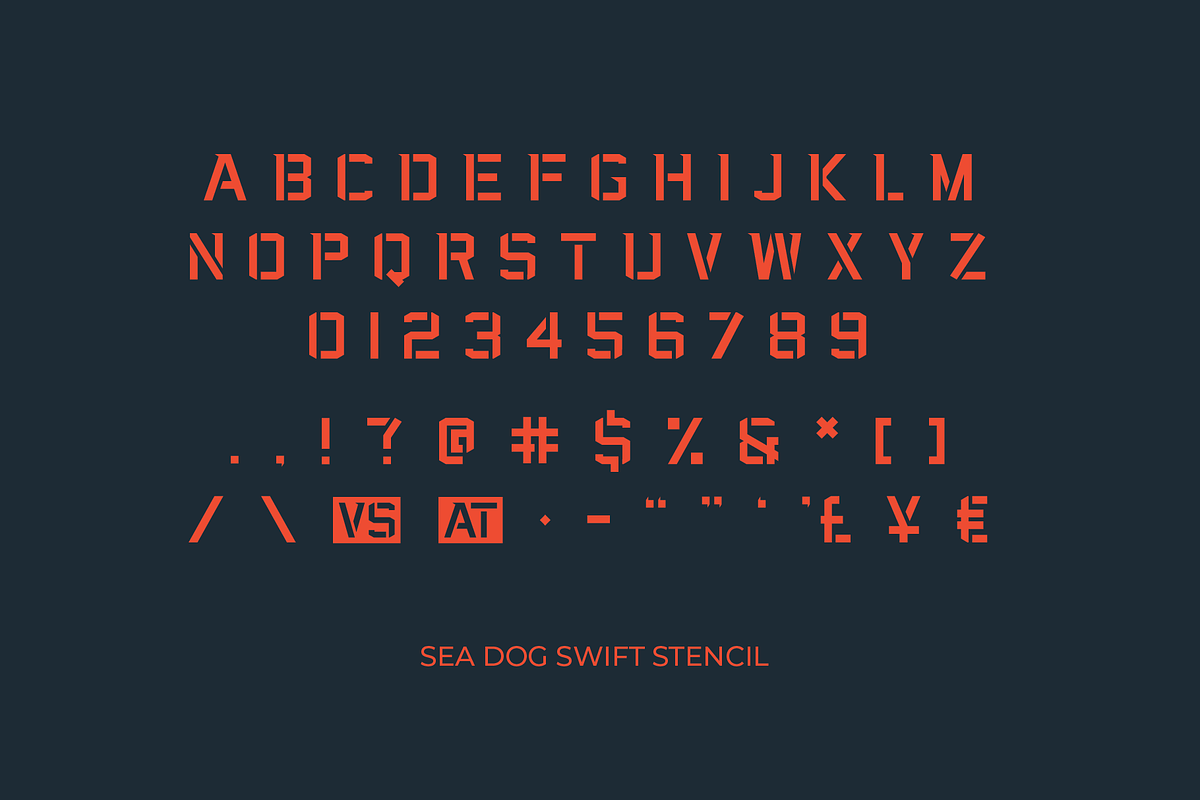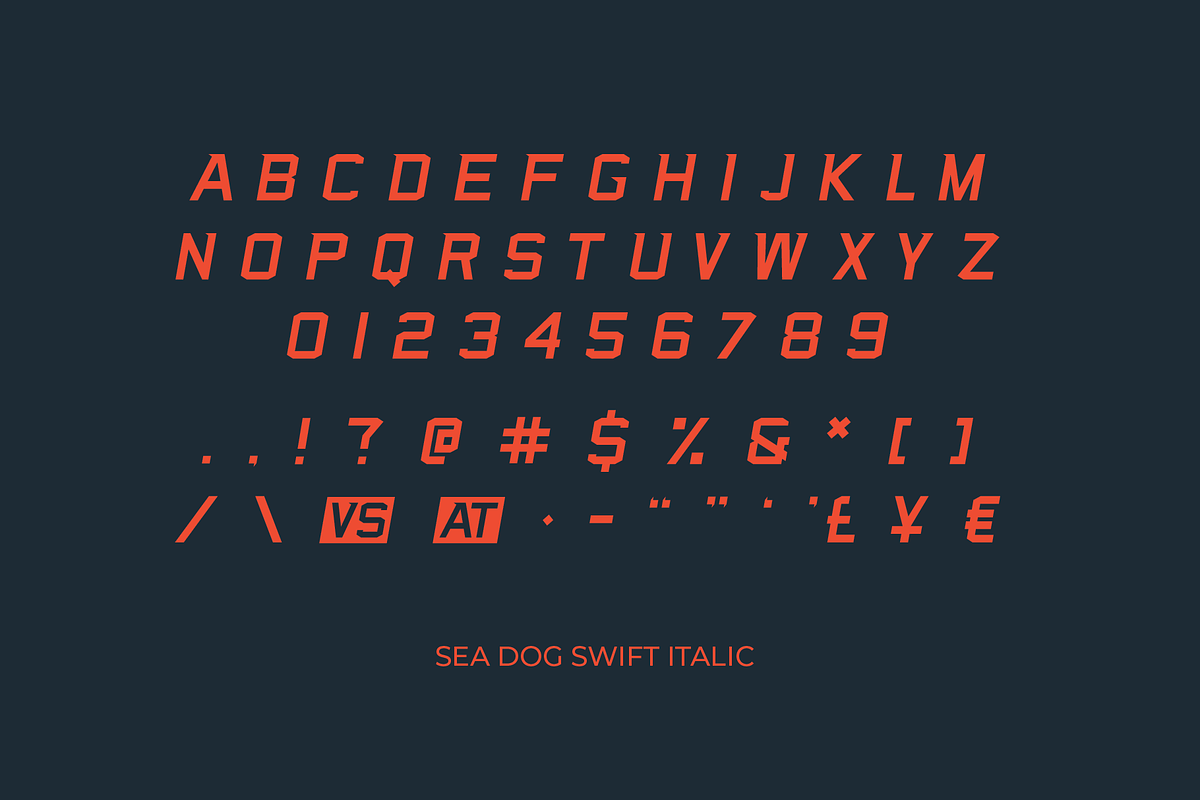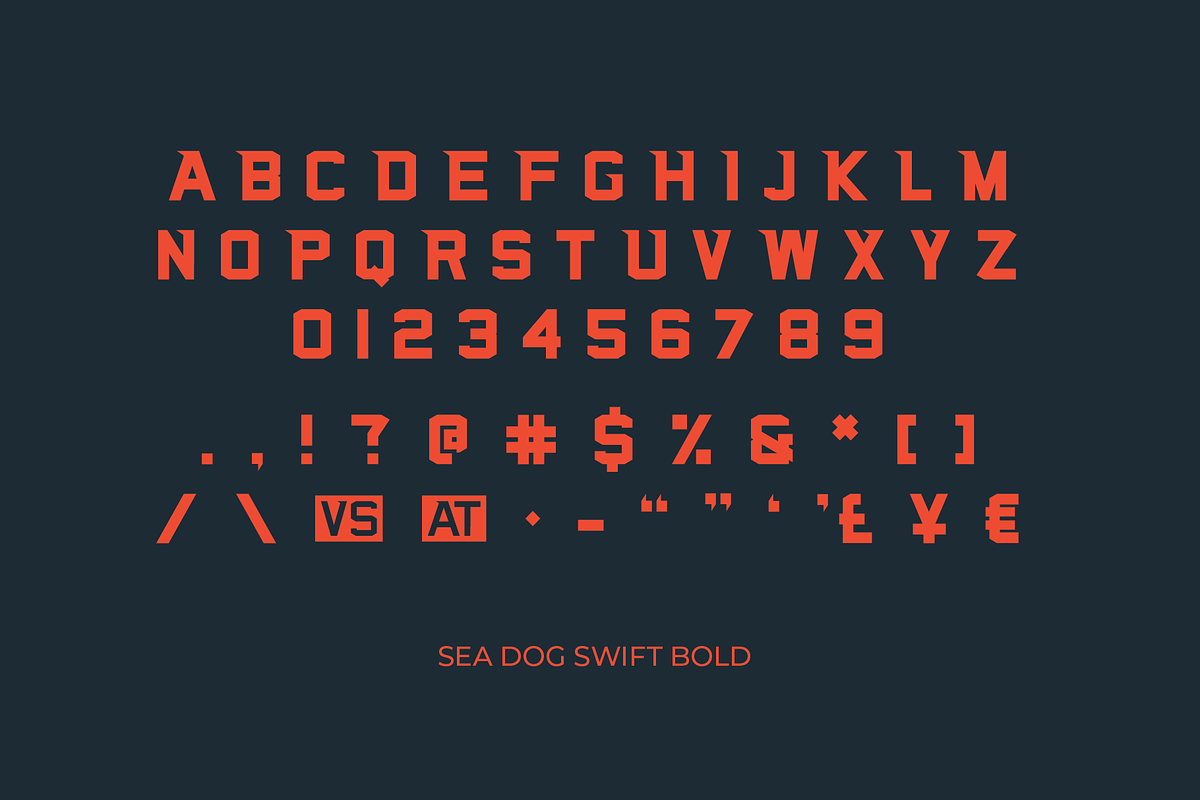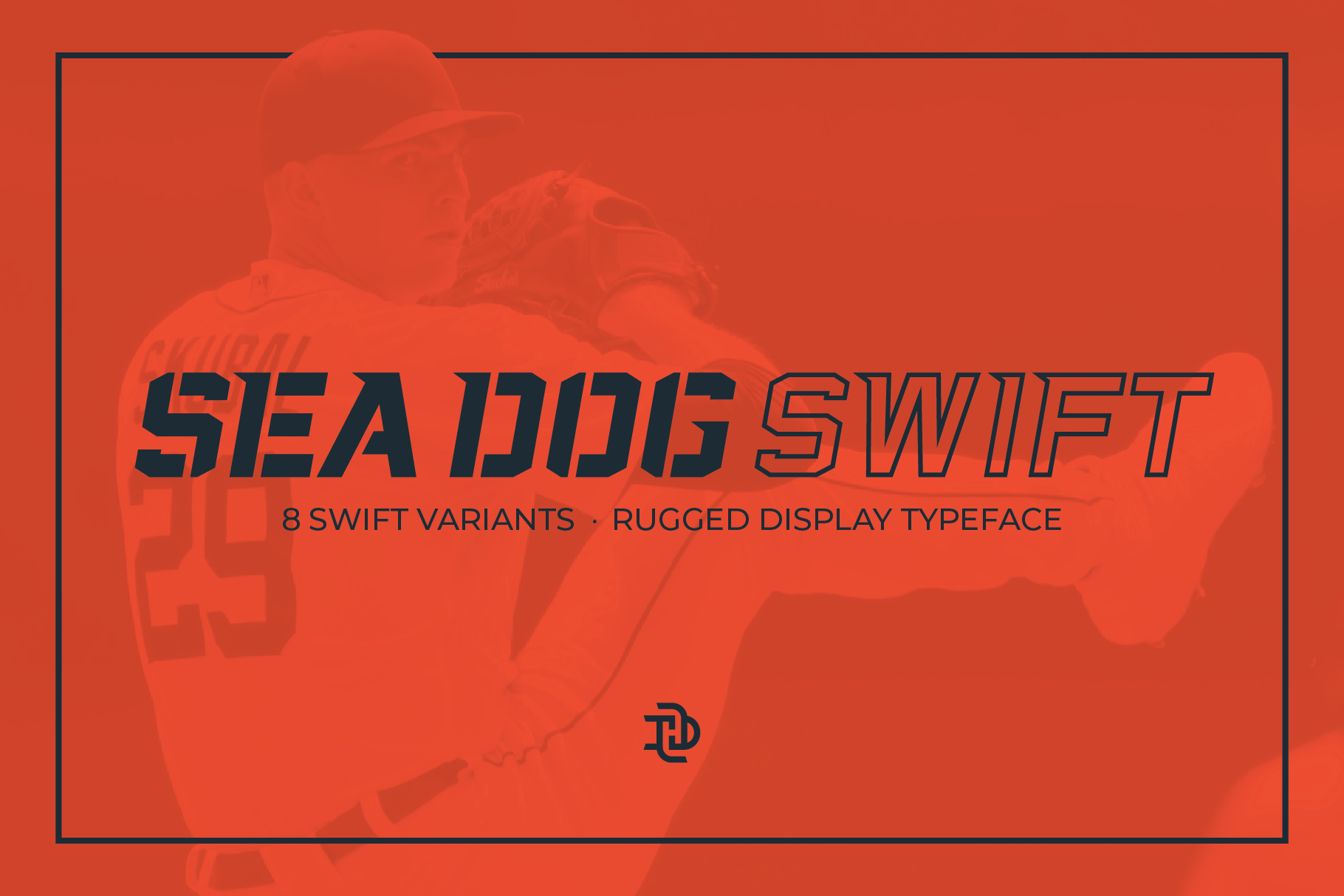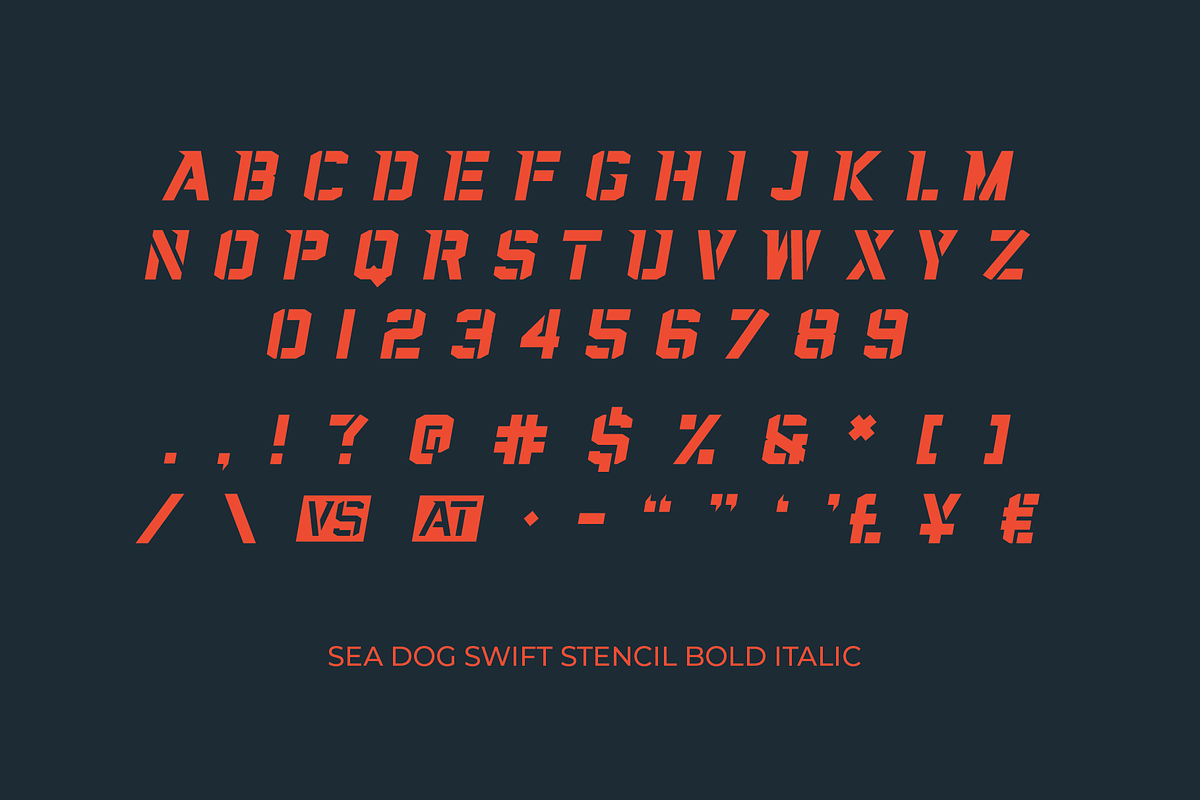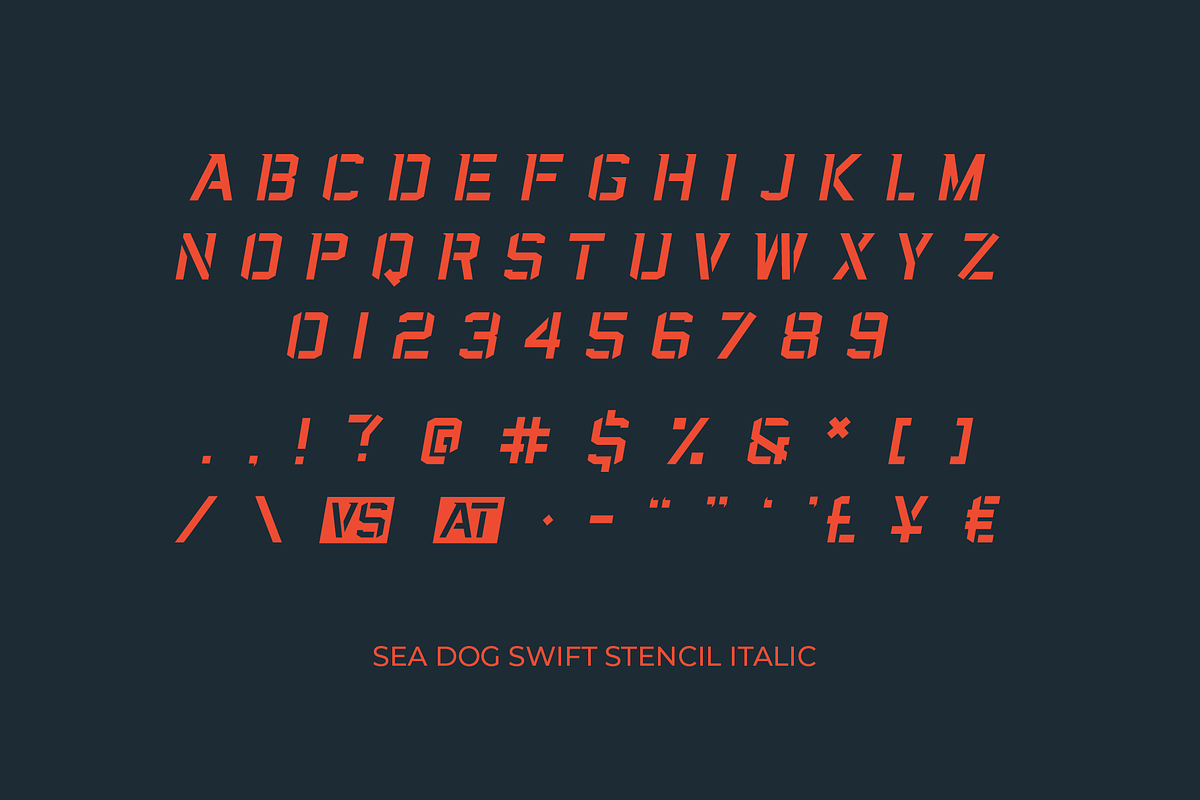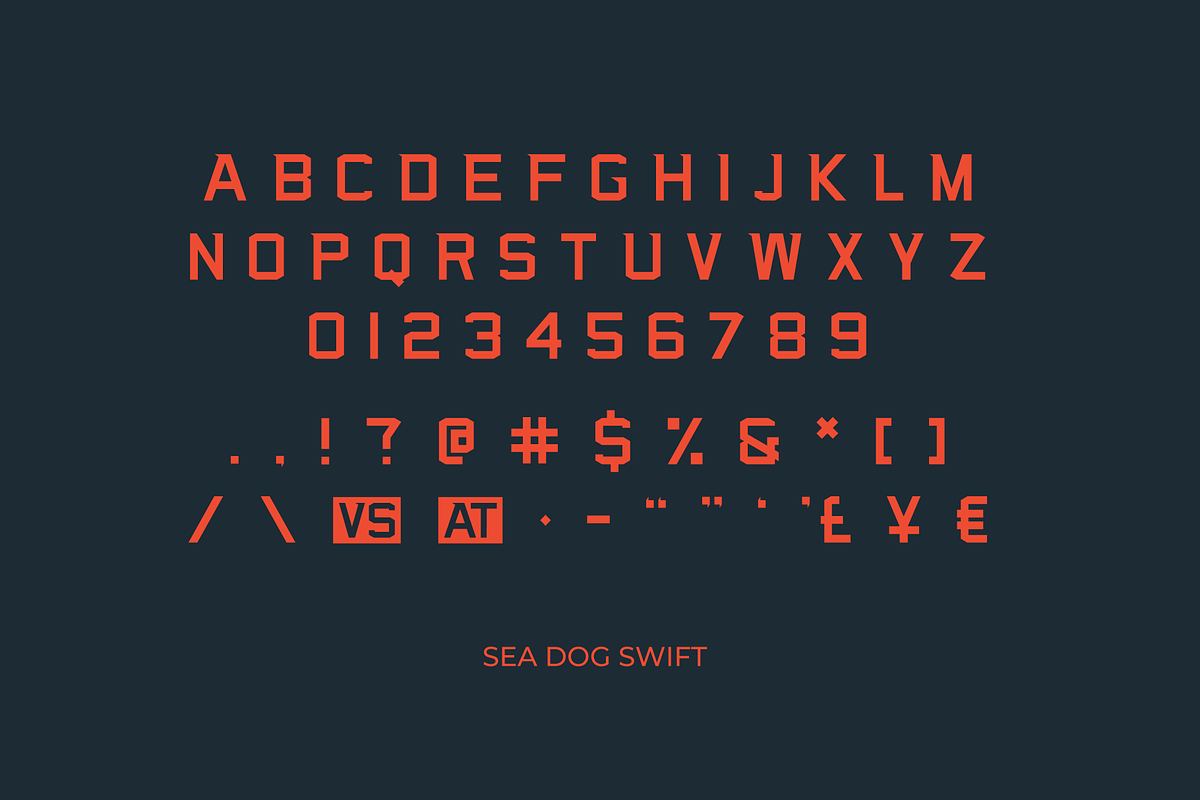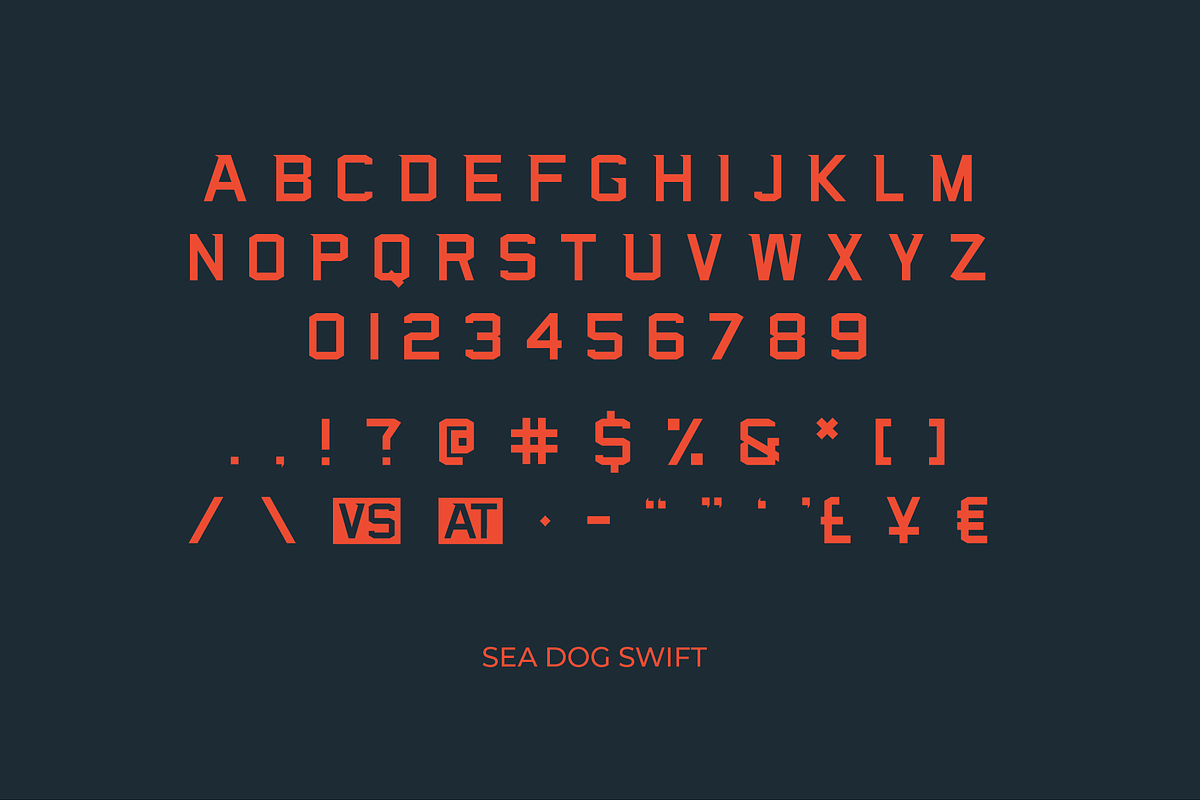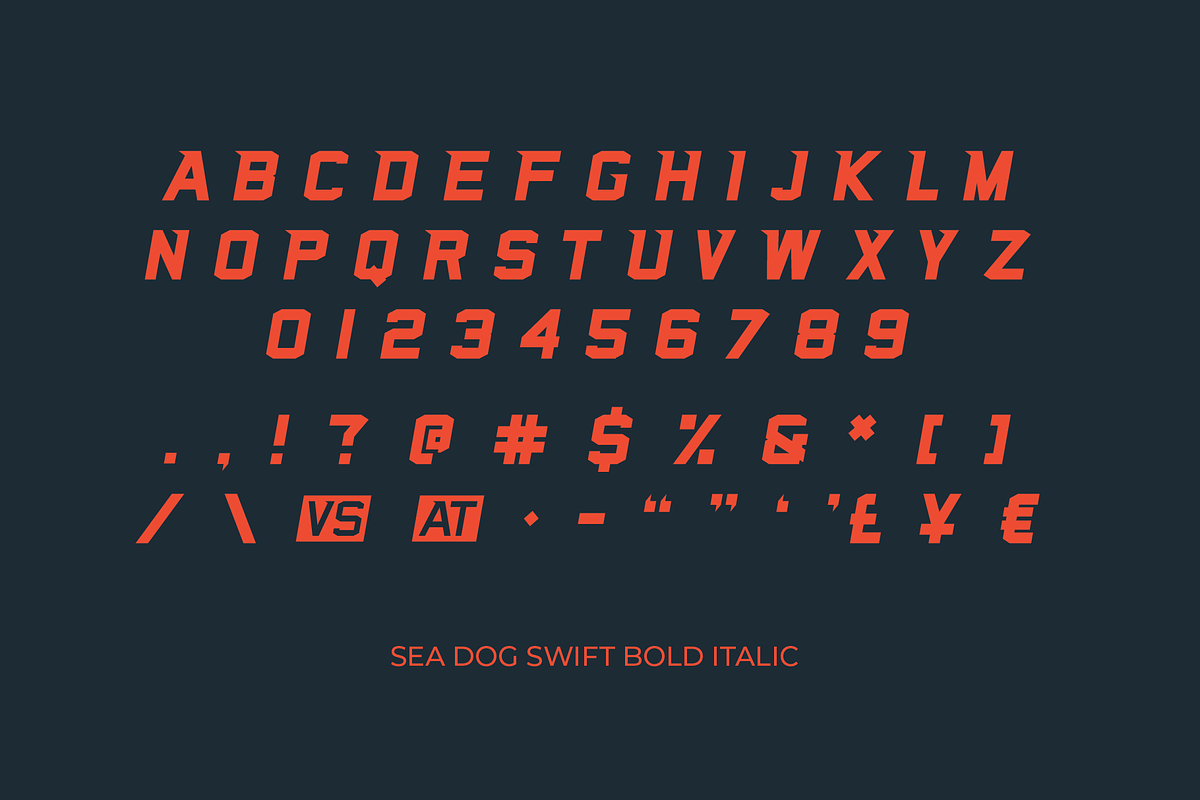
Sea Dog Swift | Sports Display Font
Inspired by stencil lettering captured around the shipyard, Sea Dog is a hard-working font that is perfect for reinforcing your project with a no-nonsense display typeface.
Sea Dog Swift features swift block solid & stencil characters, as well as regular, italic, bold, & bold italic styles.
Sea Dog fits a variety of uses where a rugged typeface is needed. From bus wraps to book covers, posters to packaging, Sea Dog is a great choice when you need to add some hard-working grit and a ‘roll up your sleeves’ attitude to your project.
Sea Dog is not just for sailors – it’s comfortable in all kinds of scenarios: athletic branding and apparel, craft beer labels and packaging, restaurant menus and signage, retro badges and illustrations, even print and digital advertising.